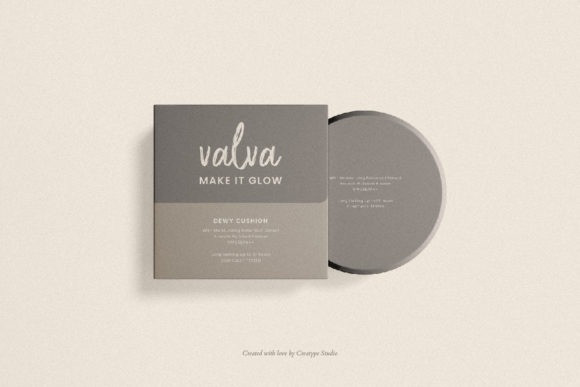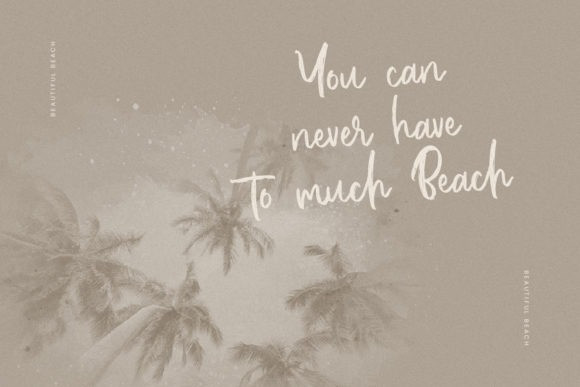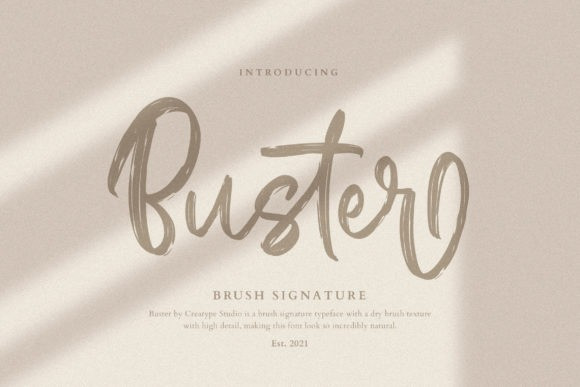
Buster Font
Buster Font is a lovely, brushed script font featuring charming, playful characters that seem to dance along the baseline. This font is PUA encoded which means you can access all glyphs and swashes with ease!